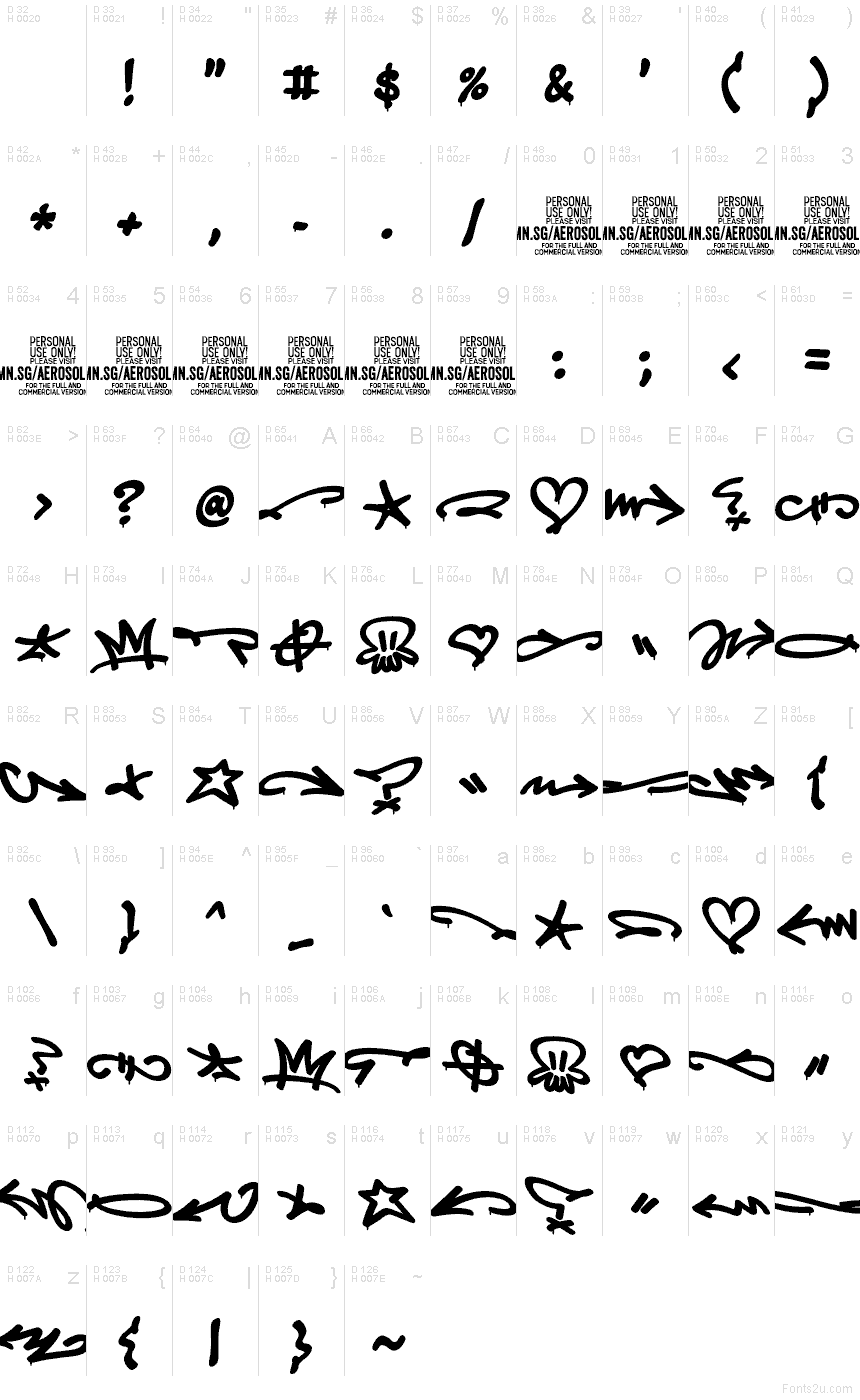
Aerosoldier Drip Symbol PERSO Regular
Aerosoldier Drip Symbol font by Mans Greback is a free graffiti dingbats typeface. Its unique draw is the inky, hand-sprayed symbols-arrows, stars, hearts, swashes, and zigs-that look freshly tagged, with chunky markers tapering into wet drips. Raw edges and paint-like blobs give each mark a quick, on-the-wall urgency while staying readable at a glance. As part of the Aerosoldier family, it carries that same bold, streetwise energy.